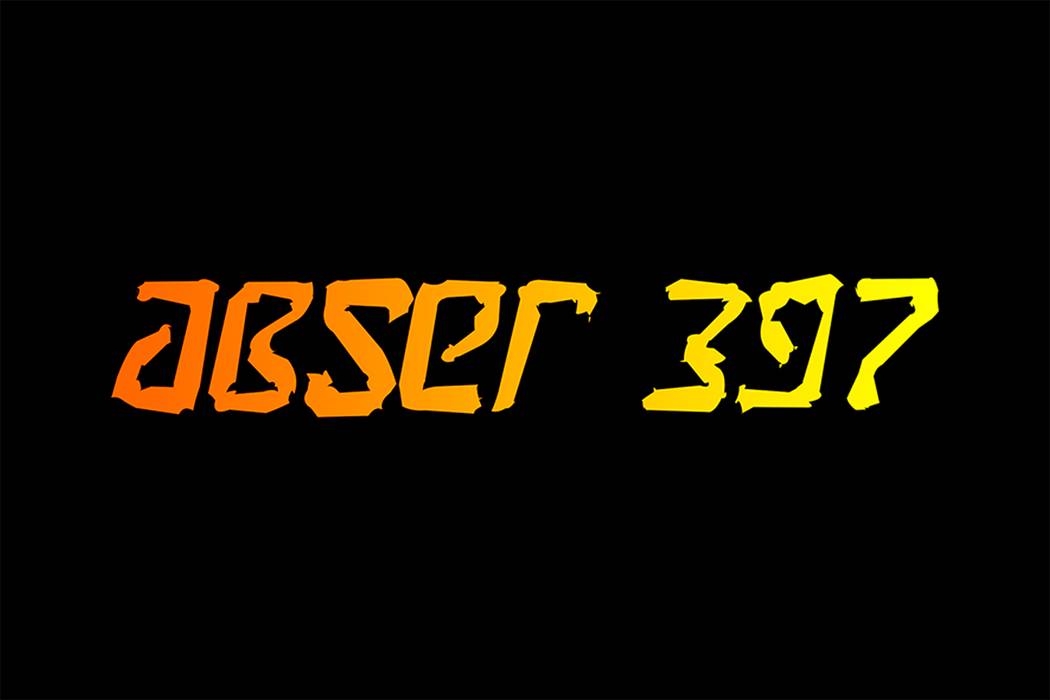
Abser 397 is a bold, condensed sans serif font with a rough, jagged texture that gives it a dynamic, edgy personality. Its irregular, sharp strokes and high contrast create a striking, almost distressed look, making it ideal for attention-grabbing headlines, posters, and branding that seeks a rebellious or urban vibe. This font stands out best in creative works where boldness and visual impact are key.
Abser 397 Font
About Abser 397 Font
| Font family | Abser 397 Font |
| Designer | Carlos Matteoli a.k.a. Qbotype Fonts |